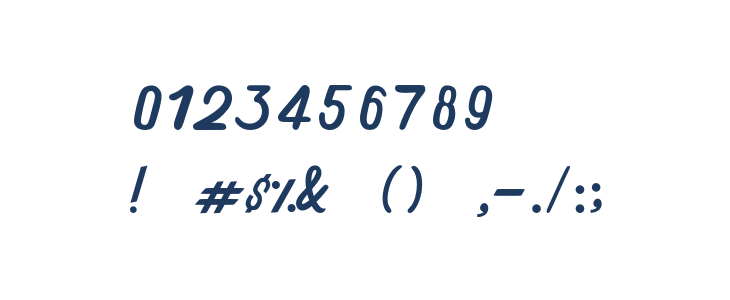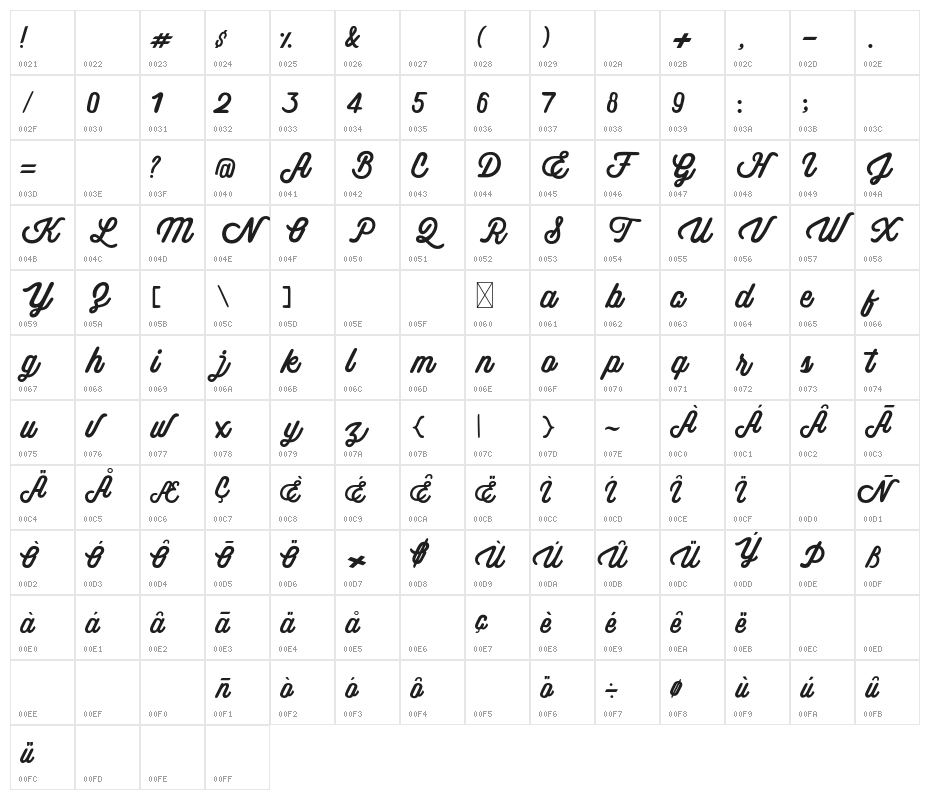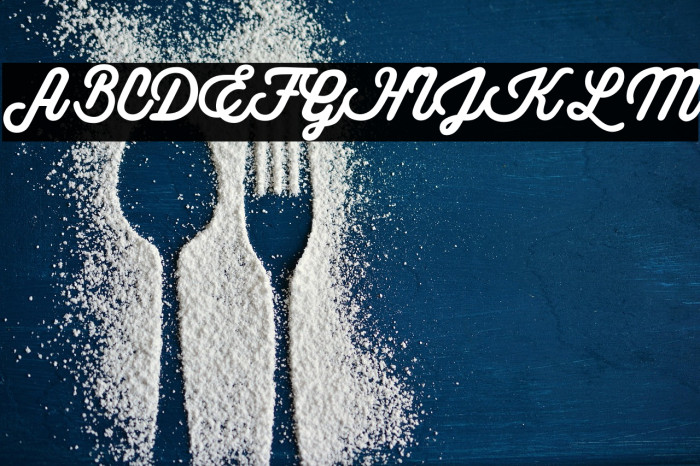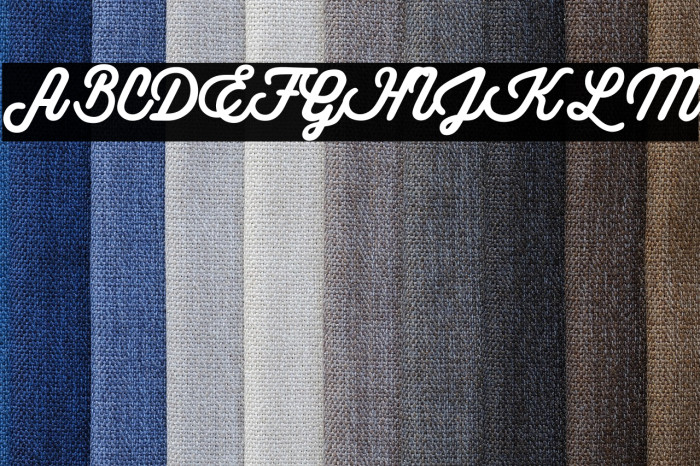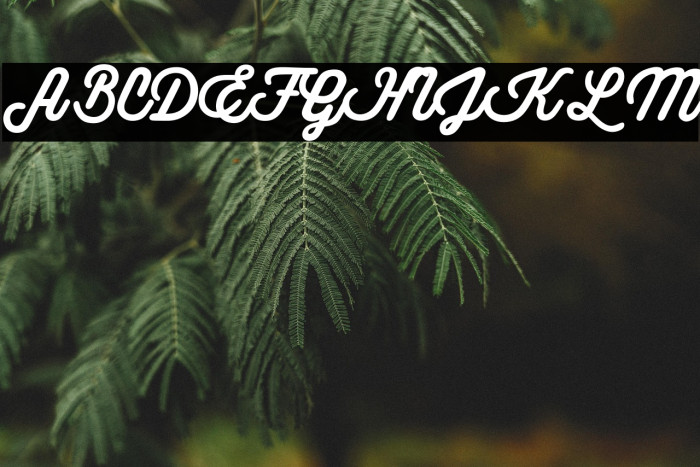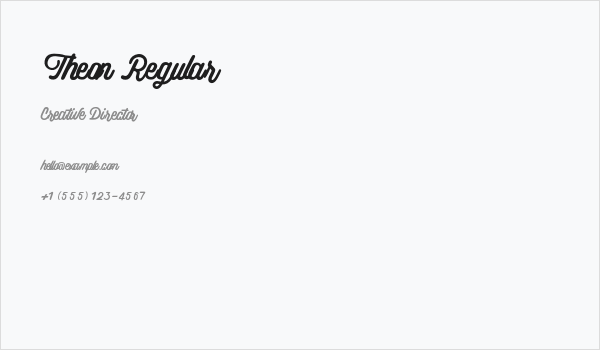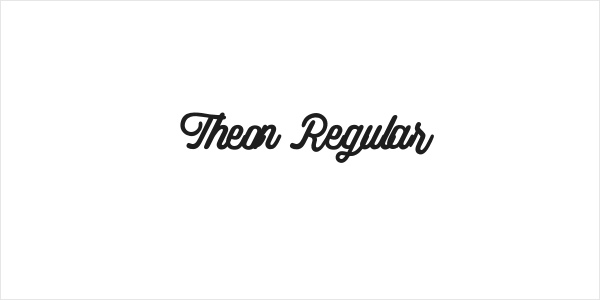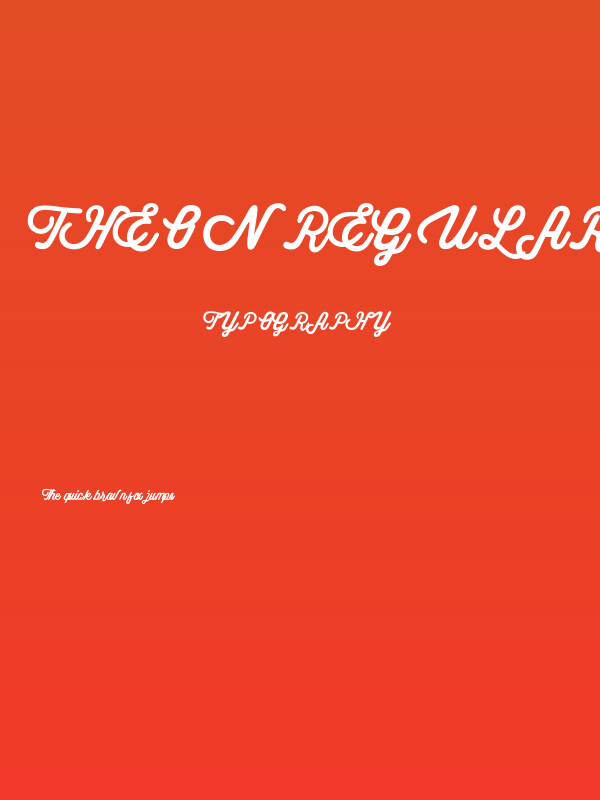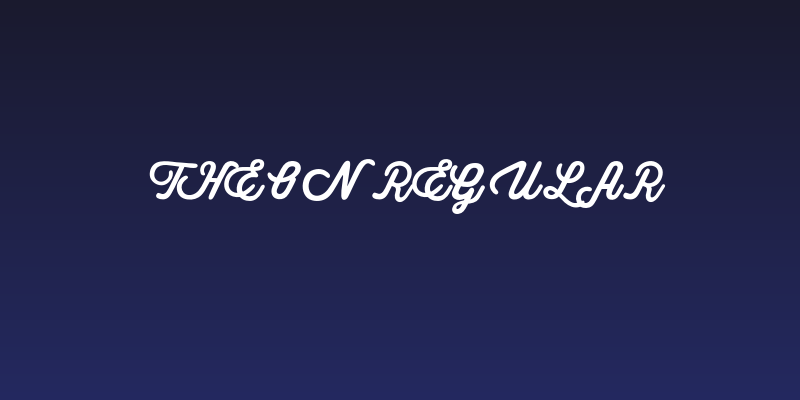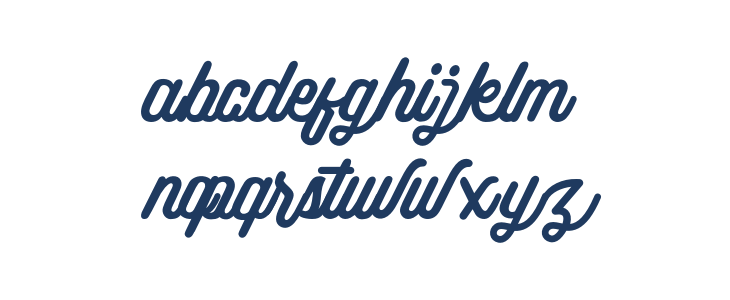
Theon Regular Font
Theon Regular Description
This font features a bold, cursive style with smooth, flowing lines that give it a dynamic and elegant appearance. The letters are connected, creating a sense of continuity and fluidity. The uppercase characters maintain a consistent height, while the lowercase letters have a slight slant, enhancing the script-like quality. The numbers and special characters are designed to match the overall style, ensuring a cohesive look. The font's boldness makes it stand out, while the cursive design adds a touch of sophistication and charm.
| Overall Style | Elegant, Decorative |
| Proposed Projects | Ideal for wedding invitations, elegant branding, greeting cards, and decorative headlines. |